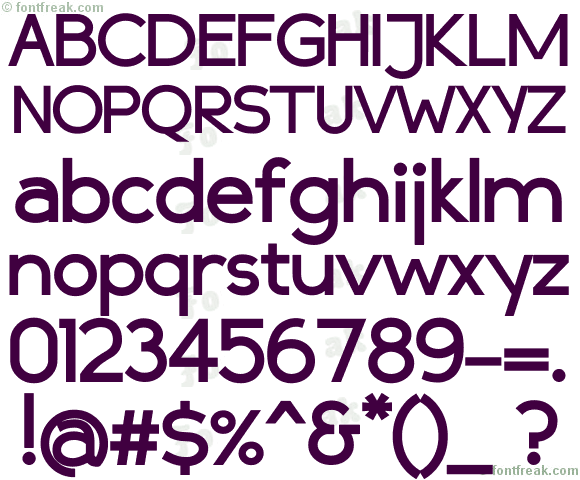
Compass Bold
About Compass Bold
Compass Bold by Kelvin Ma is a striking sans-serif typeface that exudes modernity and confidence. With its bold stroke weight and clean lines, this font captures attention while maintaining readability. The even spacing between letters ensures clarity, making it an excellent choice for a variety of design projects. The visual characteristics of Compass Bold, such as its strong geometric shapes and minimal decorative elements, give it a contemporary feel that can enhance any layout.
This font is particularly well-suited for use cases that require a touch of boldness and clarity. It shines in branding materials, making it perfect for logos and business cards that need to convey strength and professionalism. Additionally, Compass Bold is ideal for headlines in magazines and websites, where it can draw readers in without overwhelming them. It also works effectively for signage and promotional materials, ensuring messages are both eye-catching and easily legible. Small business owners and graphic designers will find this font invaluable for creating engaging restaurant menus or event flyers, where clarity and aesthetic appeal are paramount.
What truly sets Compass Bold apart is its ability to balance boldness with simplicity. This harmonious blend allows it to fit seamlessly into a variety of design contexts while still making a strong visual statement. Whether you’re crafting an advertisement or designing a website, the Compass Bold font free download is an excellent addition to your typography toolkit, ensuring your message stands out with confidence.